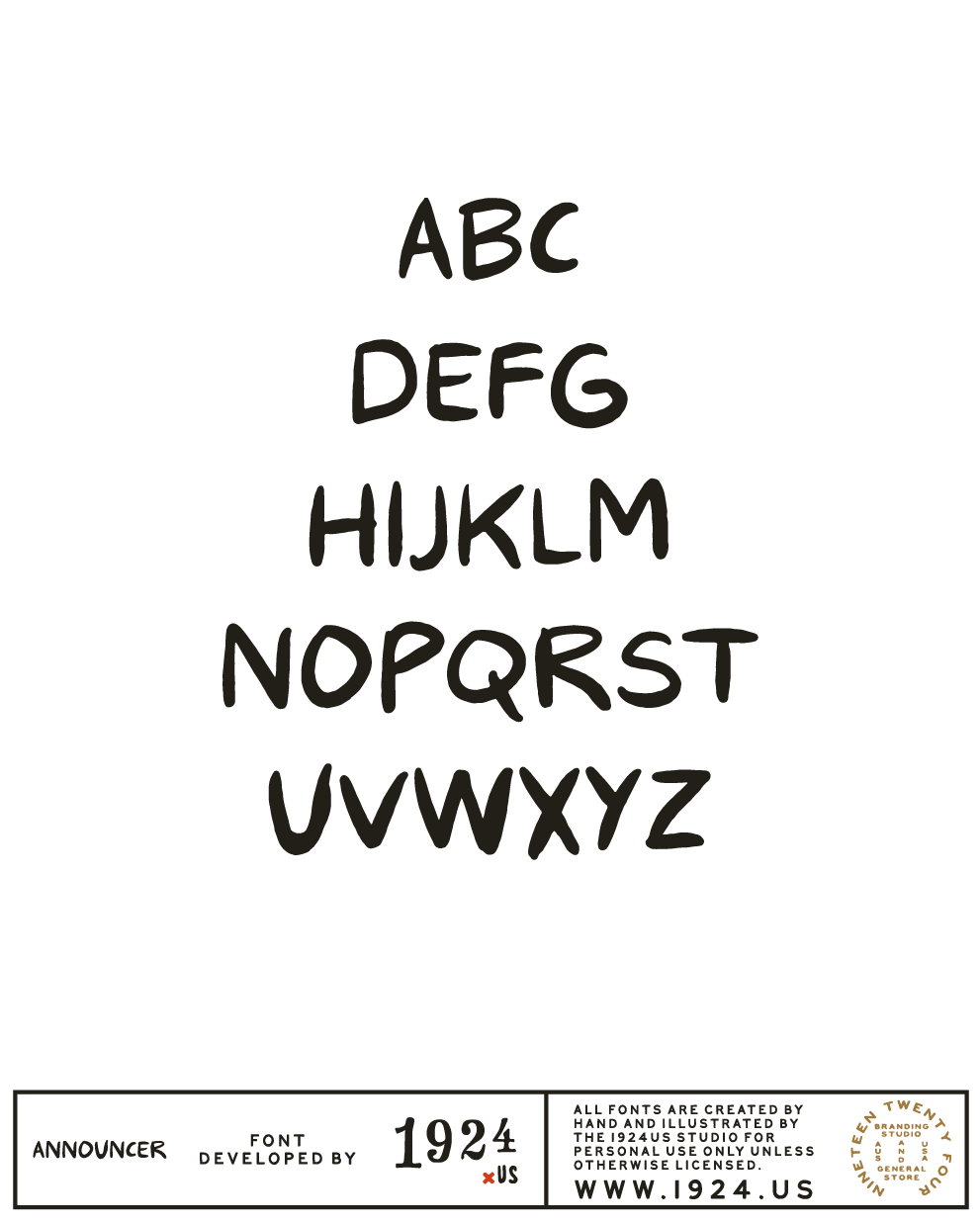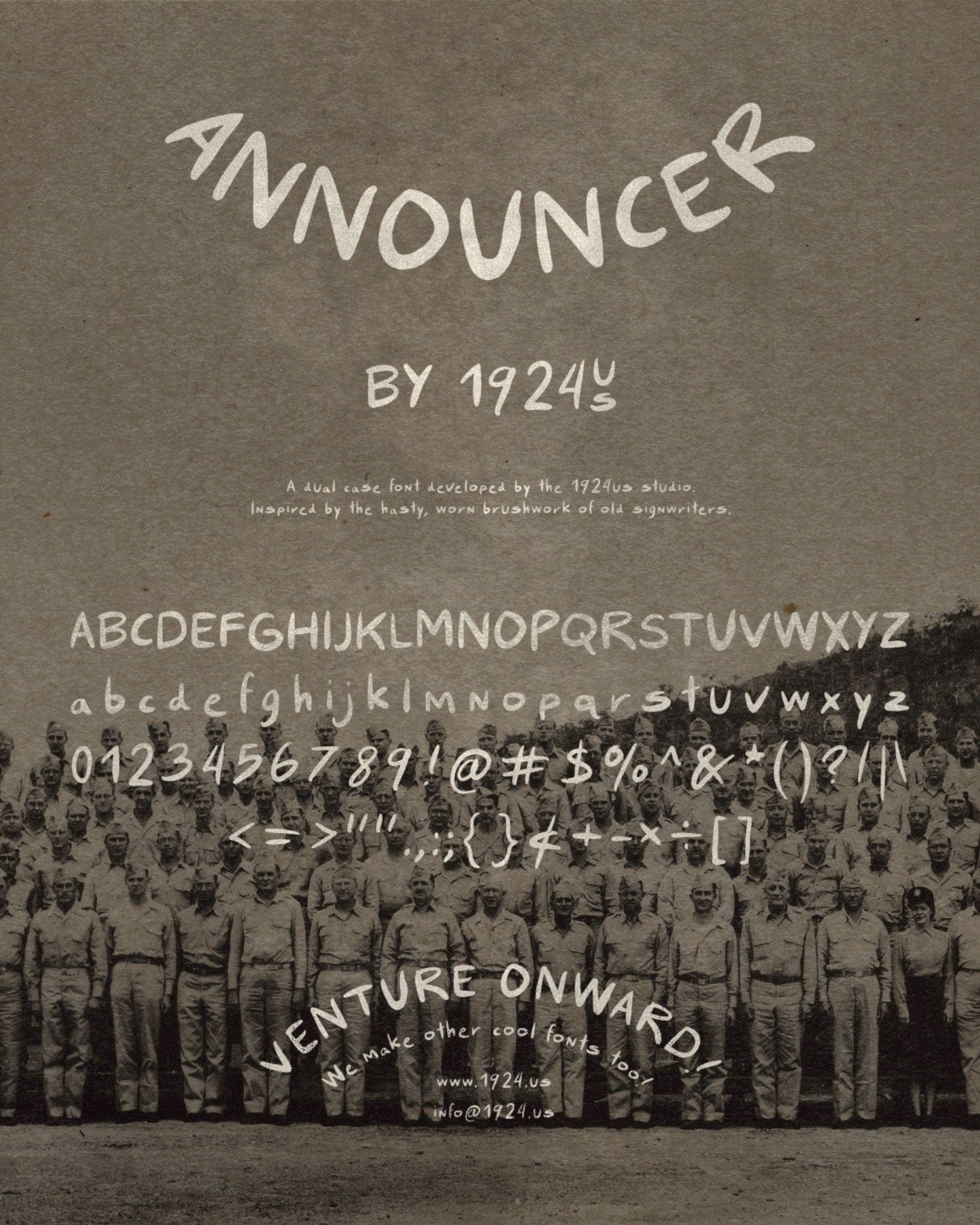
clever little font
Announcer is my go-to for anything fun and friendly—it feels like a burst of personality. I use it all the time when I want my designs to feel personal, creative, and full of life.